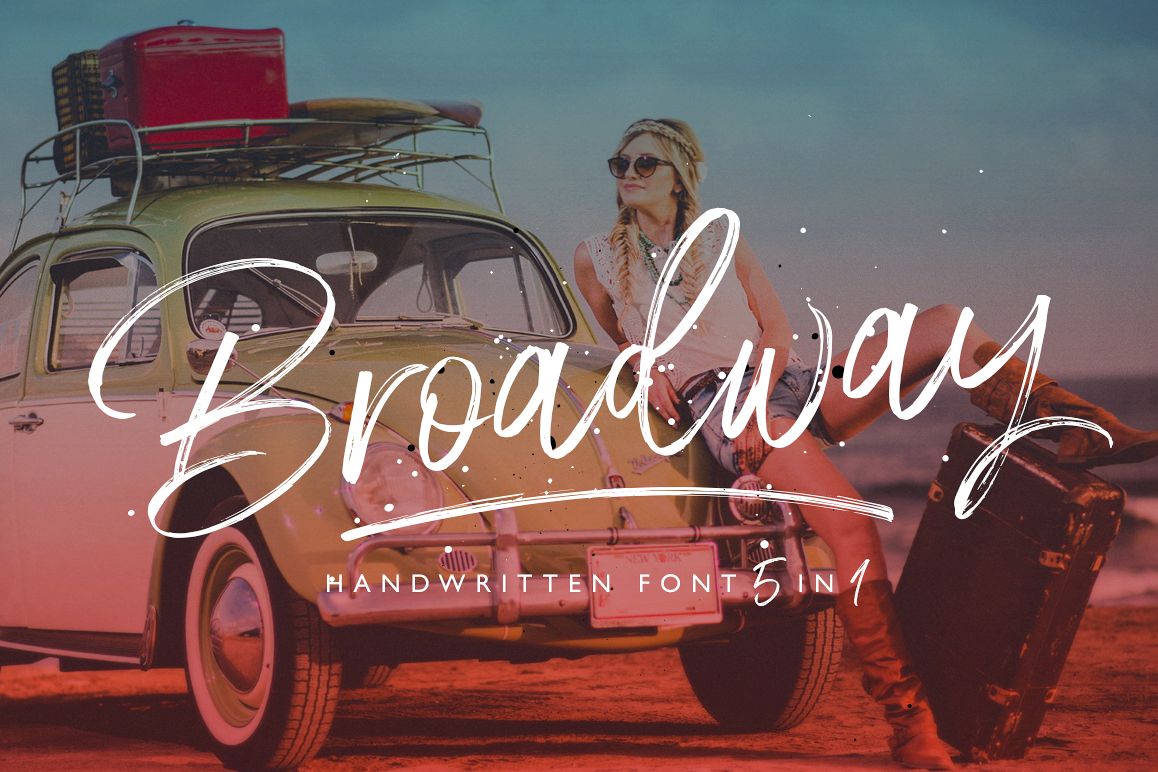
Broadway Script Font
Broadway Font is hand brushed font with multilingual support. Is ideal for t-shirts, magazines, phone covers, social media, restaurant menus, greeting cards, invitations, weddings, headers and many more.This brush font comes with a complete set of lowercase and uppercase characters, a large range of punctuation ligatures, numerals and and multilingual support.
• Broadway Font is a set of glyphs, Upper and Lowercase with ligatures, numerals and lot of punctuation glyphs and 4 alternates for each character.
• Broadway Font Alt1 The original font, with an alternate set of uppercase and lowercase letters changed for the standard characters.
• Broadway Font Alt2 The original font, with an alternate set of uppercase and lowercase letters changed for the standard characters.
• Broadway Font Alt3 The original font, with an alternate set of uppercase and lowercase letters changed for the standard characters.
• Broadway Font Alt4 The original font, with an alternate set of uppercase and lowercase letters changed for the standard characters.
• Broadway Swashes - a set of 26 hand drawn swatches for text decoration